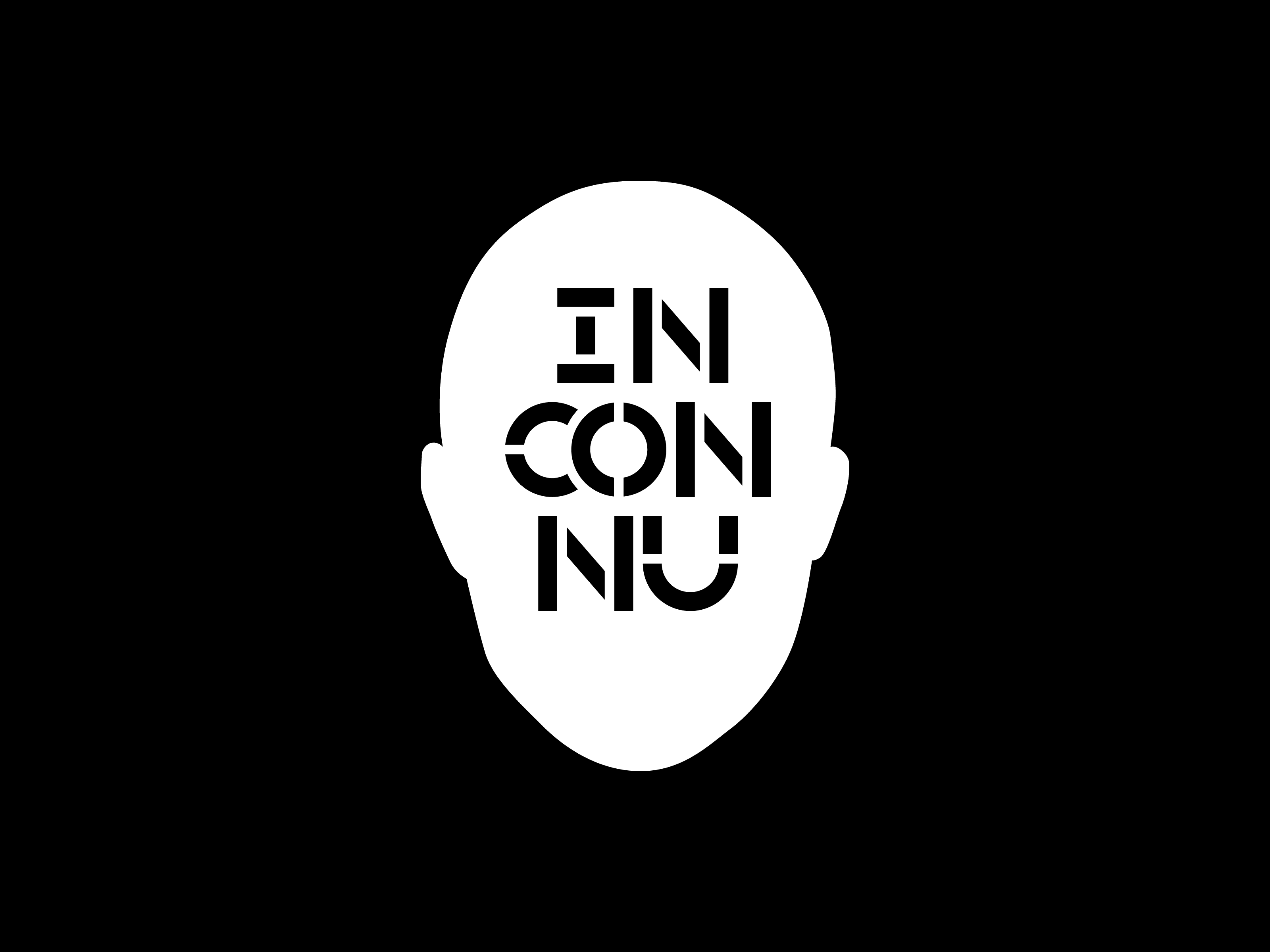
Inconnu
A logotype for a slovak feature film and television production company Inconnu. The puzzling name (word “Inconnu” word doesn't mean anything in Slovak language) is devised with a simple geometrical stencil sans-serif typeface. The lettering is contained in a silhouette of a human head to further support the notion of mystery.